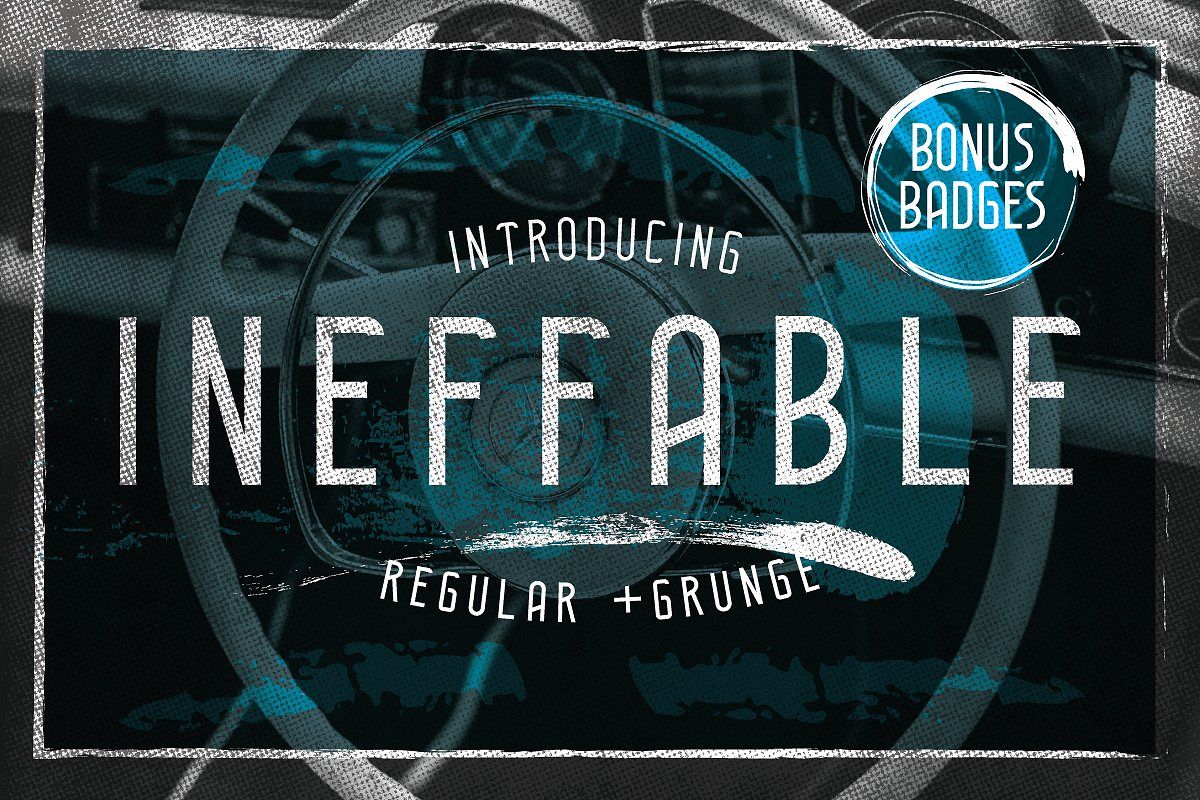
Ineffable
Ineffable is a stylish font with regular and grunge font. It is suitable for logo, brand, title, design t-shirt, and many more. In the master file you'll get :